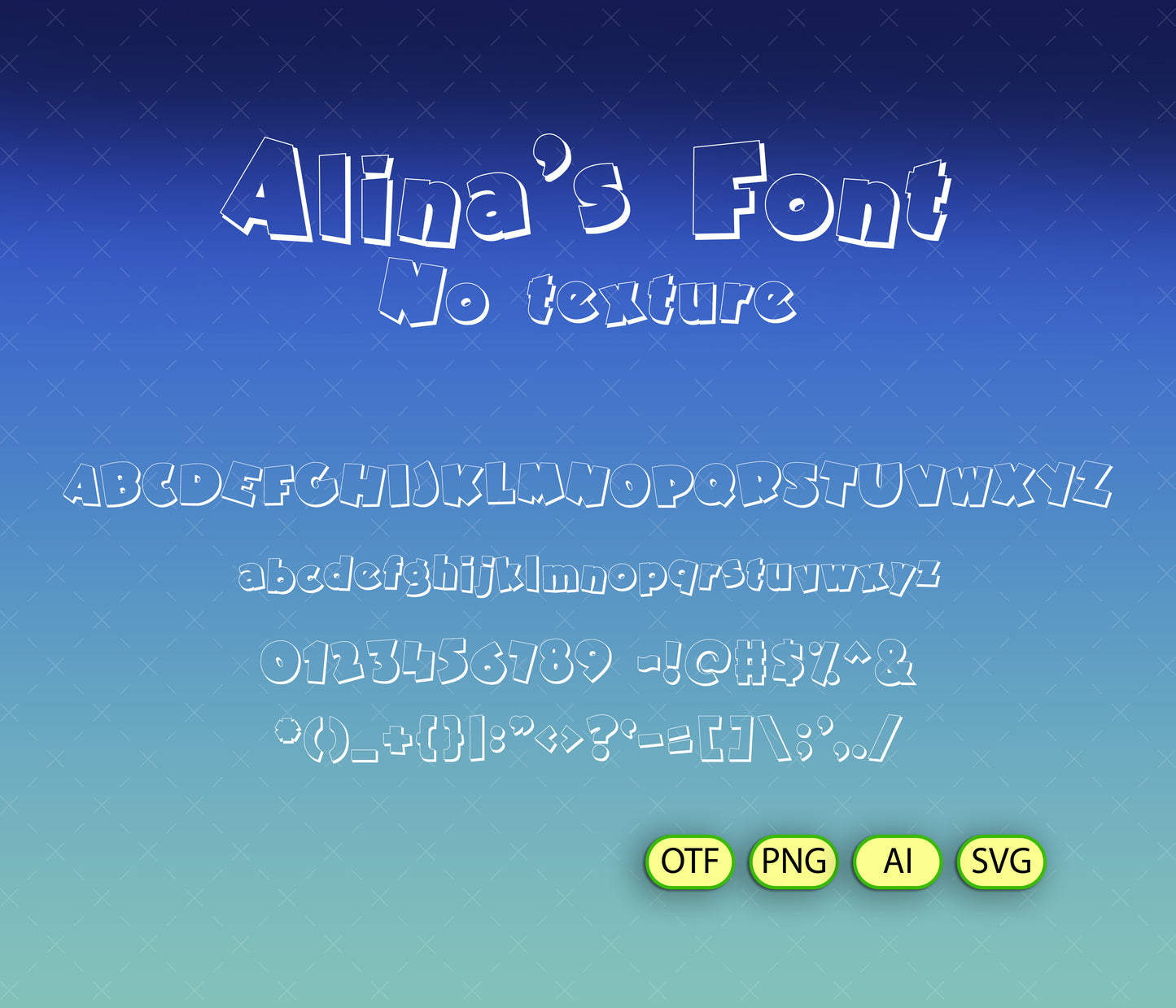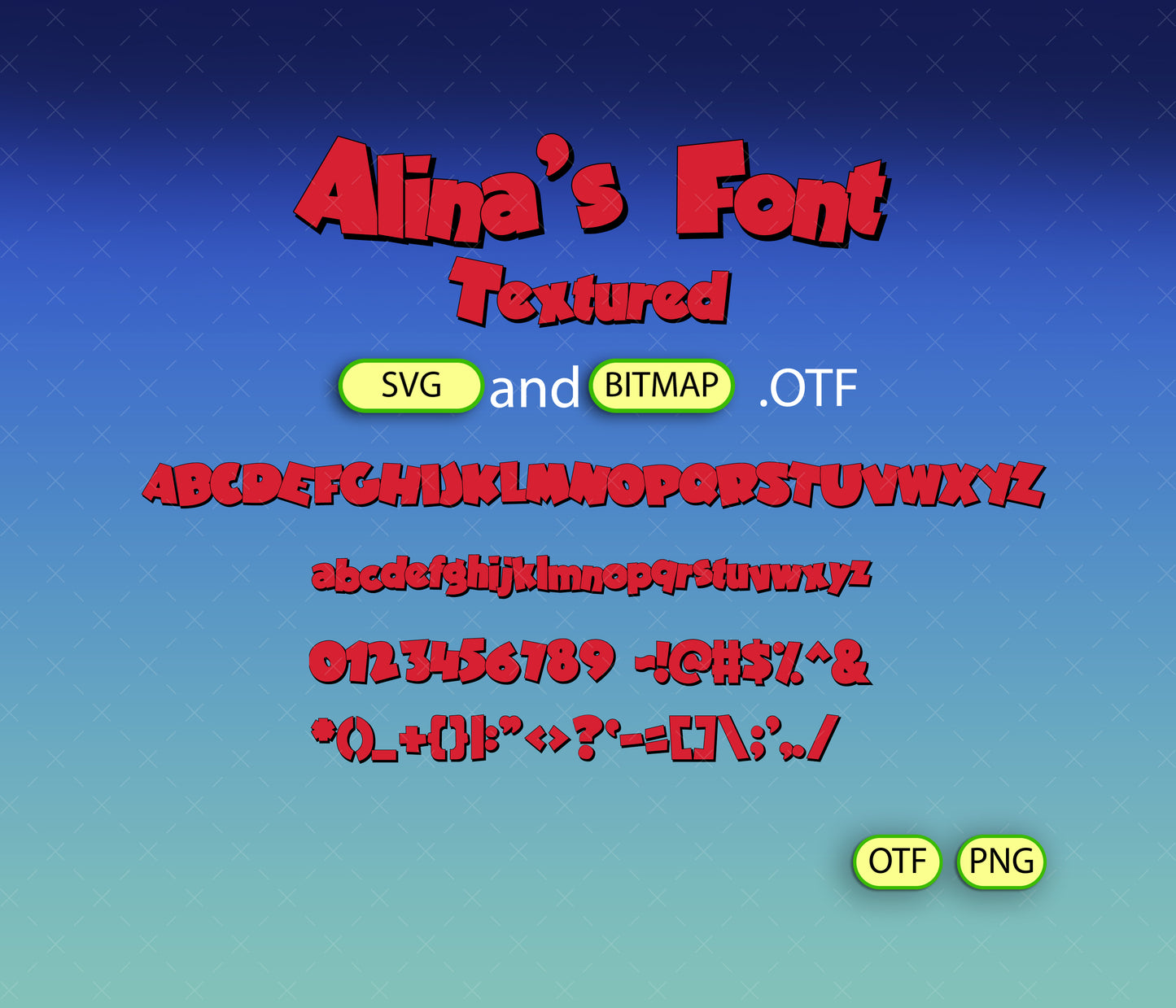
Lasagna Lover Feline Font Textured
Delve into the humorous and laid-back universe of a beloved comic strip cat with our custom-designed font, inspired by the iconic, lasagna-loving feline. This font captures the essence of a world characterized by witty humor, playful sarcasm, and the unique charm of its characters. Each character in the Lasagna Lover font is crafted to reflect the comic's distinctive style, making it perfect for projects that aim to bring a touch of quirky and endearing personality.
What Font is Lasagna Lover Font?
Imagine a typeface that embodies the casual, bold, and slightly irreverent spirit of a famous comic strip cat. Our Lasagna Lover font is designed to mirror fun and easygoing aesthetics, with a focus on clear, readable letterforms that capture the essence of a lovable, lazy character. It includes an extensive character set, featuring alphabets, numbers, and special symbols, providing a versatile toolkit for a wide range of design projects, from playful content to nostalgic merchandise.
What Can You Do With Lasagna Lover Font?
The Lasagna Lover font is versatile and ideal for various creative and entertaining applications:
1. Comic and Book Design: Enhance comic strips, children's books, or graphic novels with a font that reflects a beloved comic style.
2. Themed Event Invitations: Create fun and unique invitations for feline-themed parties or events.
3. Merchandise Design: Ideal for designing t-shirts, mugs, and other merchandise that appeals to fans of the comic.
4. Digital Content and Social Media: Use the font to add a humorous touch to websites, blogs, and social media posts.
5. Educational Materials: Incorporate the font into teaching resources to engage children in a fun and familiar way.
6. Greeting Cards and Stationery: Design personalized stationery, greeting cards, or gift tags with a theme inspired by a famous comic cat.
7. Promotional Materials: Use in advertising campaigns for products or services that align with a playful, lazy cat persona.
8. Interior Decor: Create wall art, decals, or signage for children's rooms, cafes, or entertainment spaces.
9. Creative Art and DIY Projects: Perfect for crafting, scrapbooking, and artistic projects inspired by the comic.
10. Event Signage: Develop eye-catching signs and banners for themed events, fairs, or conventions.
• Textured and Non-Textured Variants: Available in both a playful, comic-style and a clean, non-textured version for diverse design needs.
• Comprehensive Character Set: Offers a wide range of characters for complete design versatility.
The Lasagna Lover font is more than just a typeface; it's an invitation to the amusing and relaxed world of a beloved comic strip cat.